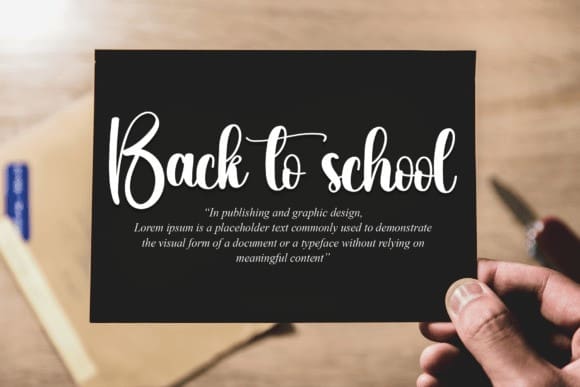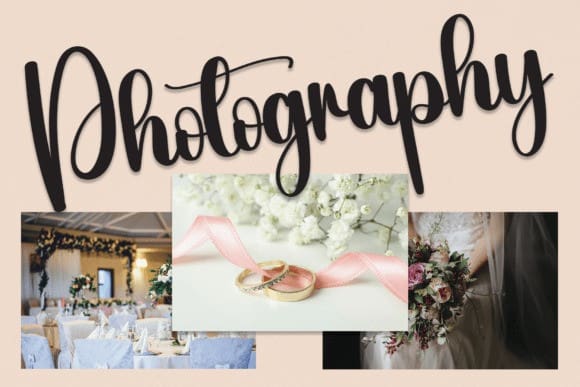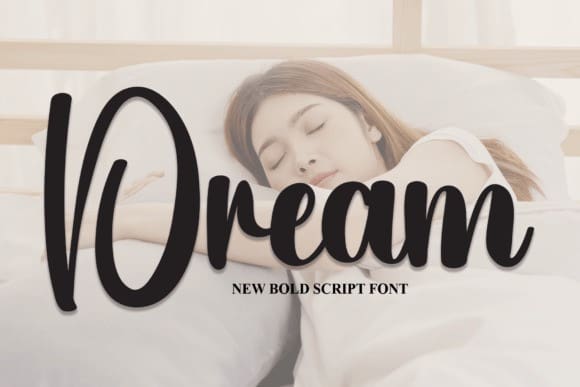
Dream Script Font
Dream Script Font is a cool and casual handwritten font. Whether you’re using it for crafts, digital design, presentations, or making greeting cards, this font has the potential to become your favorite go-to font, no matter the occasion.